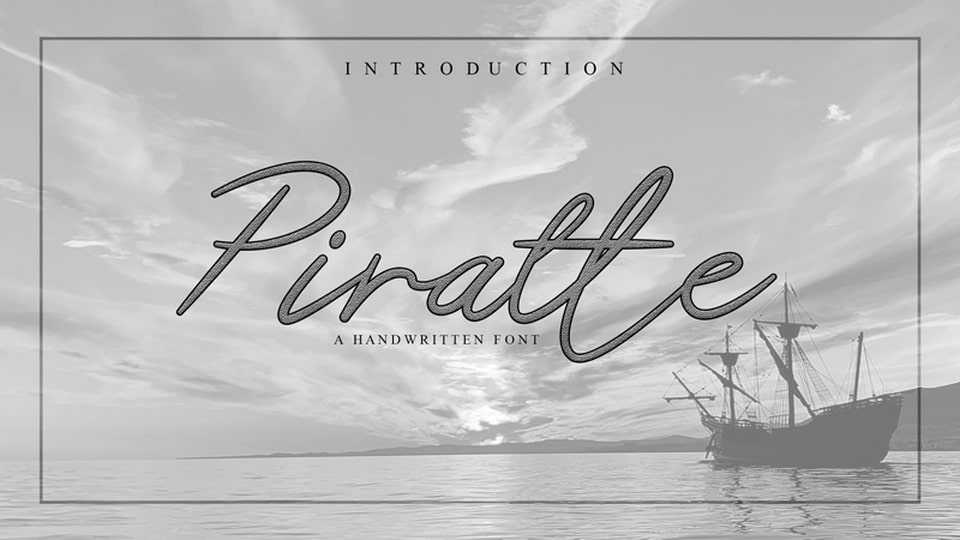
Piratte Diarys Font › Fontesk
Download Piratte Diarys font, a free-flowing and effortlessly casual handwritten font that adds a touch of carefree elegance to your designs. Piratte Diarys features a natural rhythm and organic letterforms, evoking the relaxed and spontaneous feel of handwritten text.